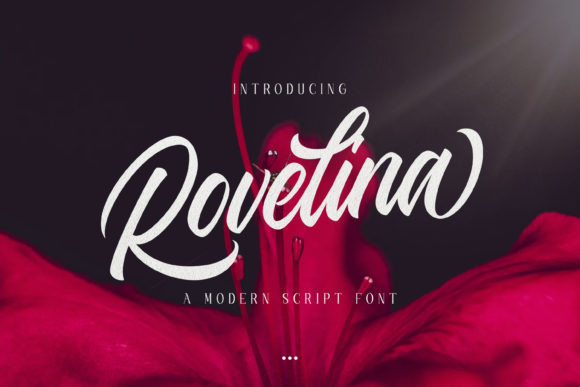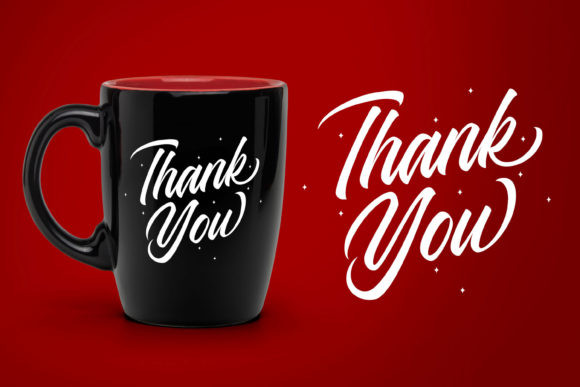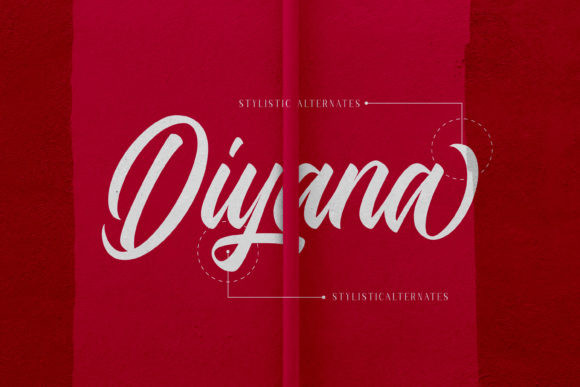
Rovelina Font
Rovelina is a modern script font, round lettered handwritten font, designed with the help of an outstanding brush pen. Fall in love with its incredibly versatile style and use it to create gorgeous wedding invitations, beautiful stationary art, eye-catching social media posts, and much more!